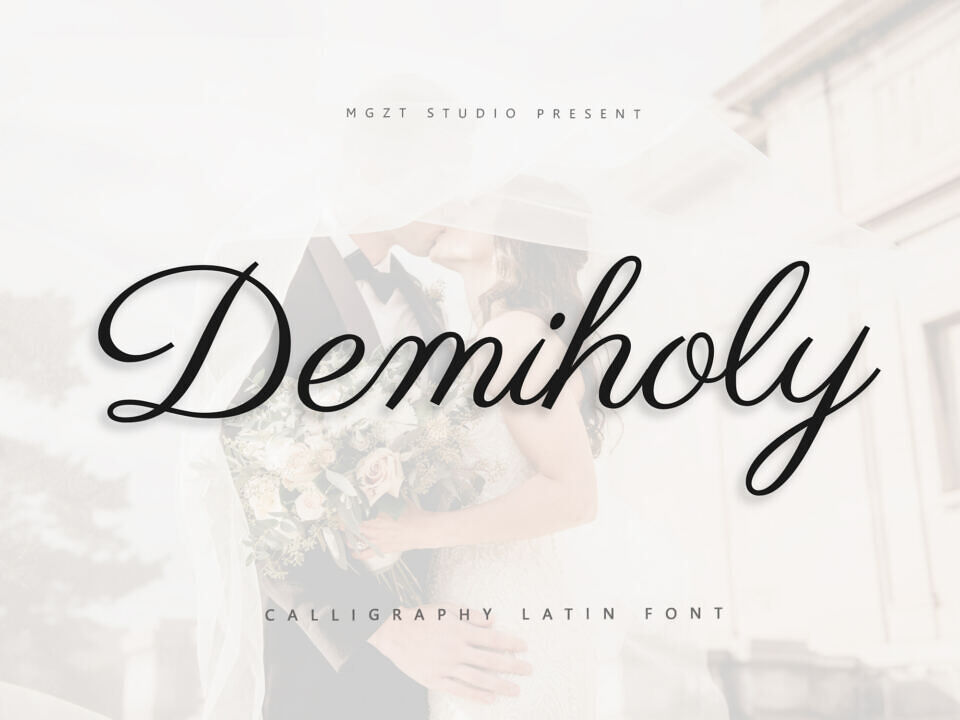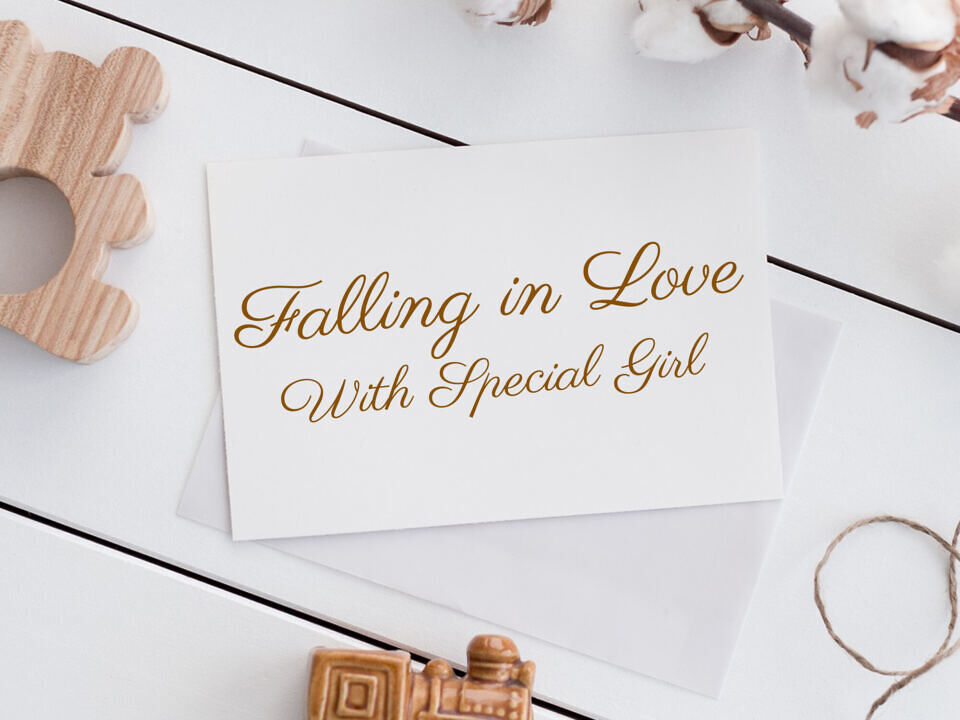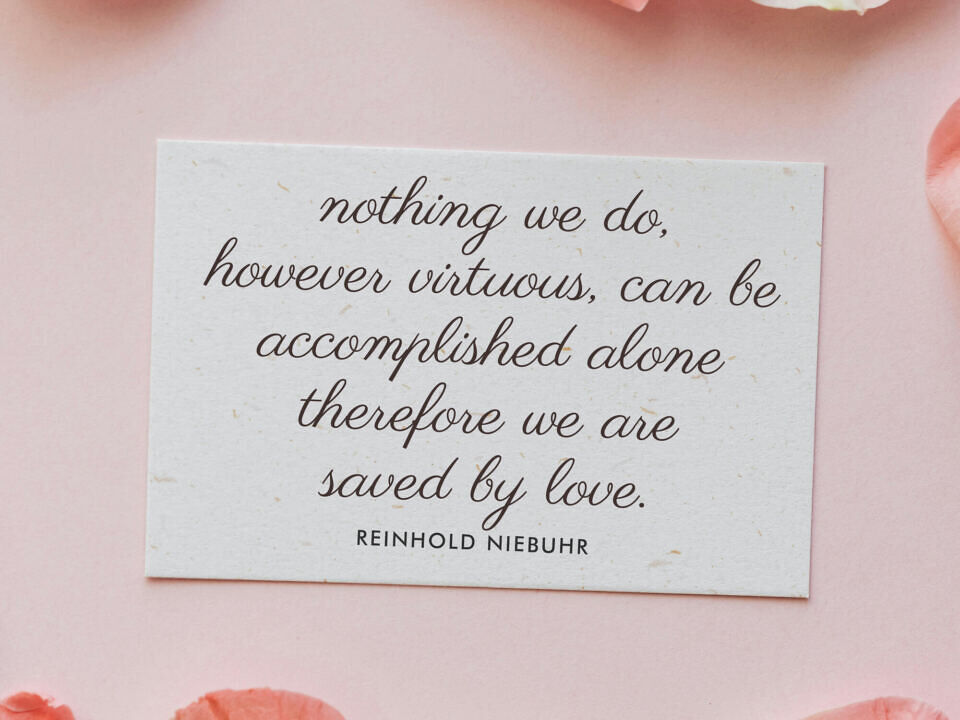
Demiholy Font
The Demiholy font is a graceful and elegant script, blending traditional calligraphy with modern flourishes. The strokes are fluid and organic, creating a sense of movement and artistry.
Each letter is carefully crafted, with sweeping ascenders and descenders that convey a sophisticated, hand-written feel.